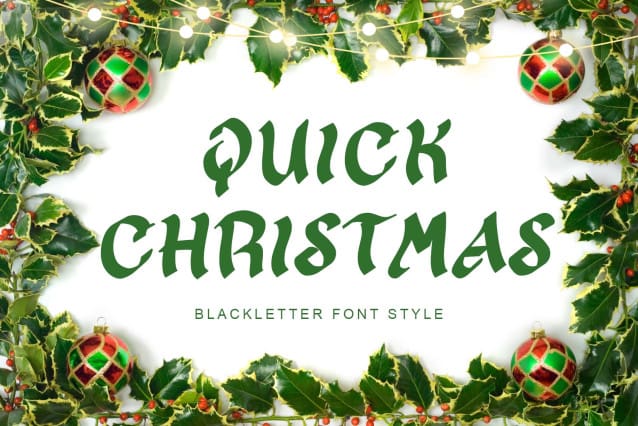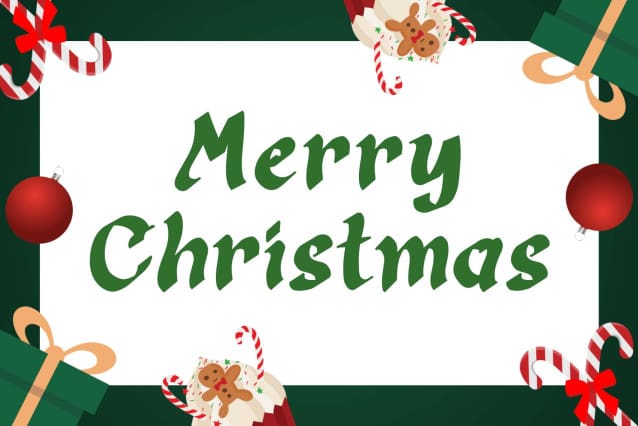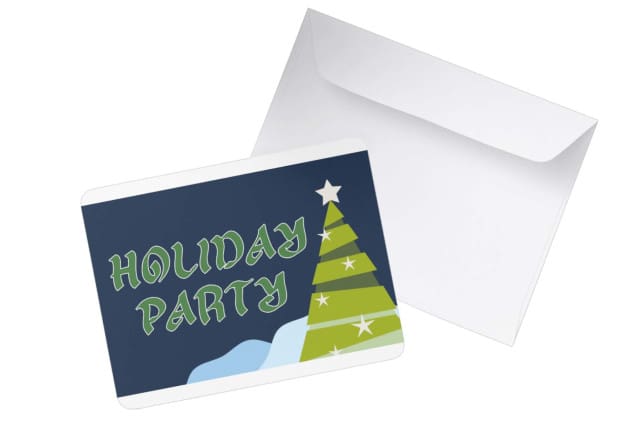
Quick Christmas Font
Quick Christmas Font is an elegant blackletter font. This font is equipped with uppercase, lowercase, numerals, punctuations and multilingual support. Very suitable for Christmas, Christmas greetings, banners, stickers, posters, summer, print, branding, mugs, tumblers, logos, t-shirts and others